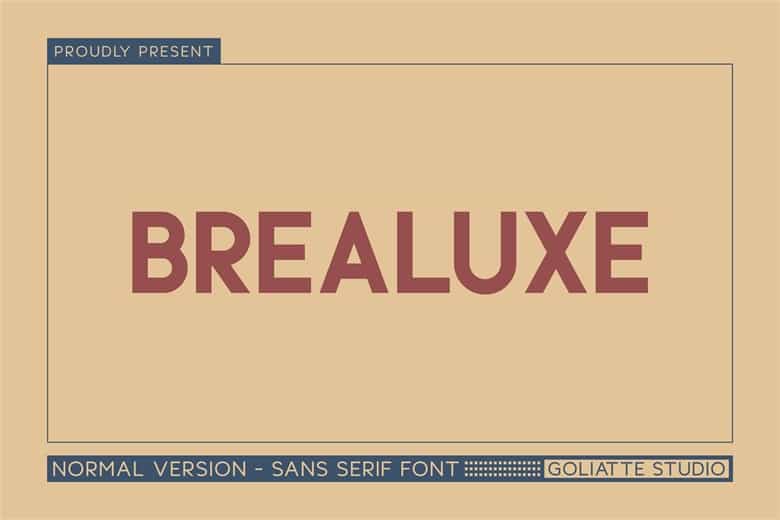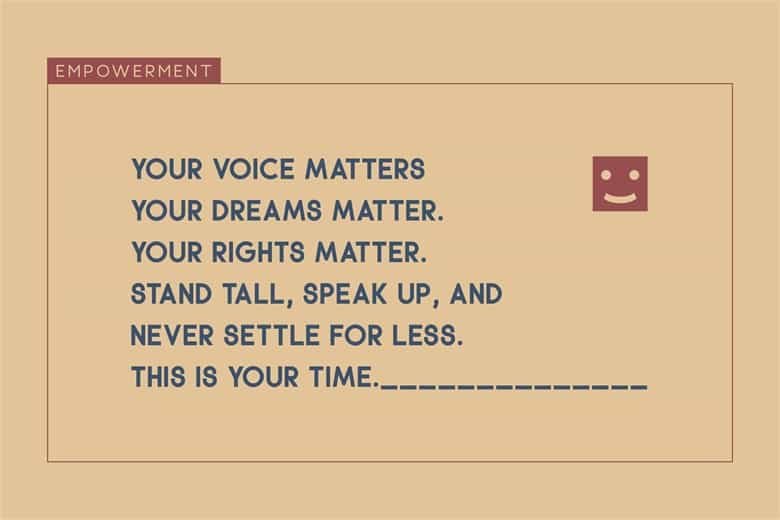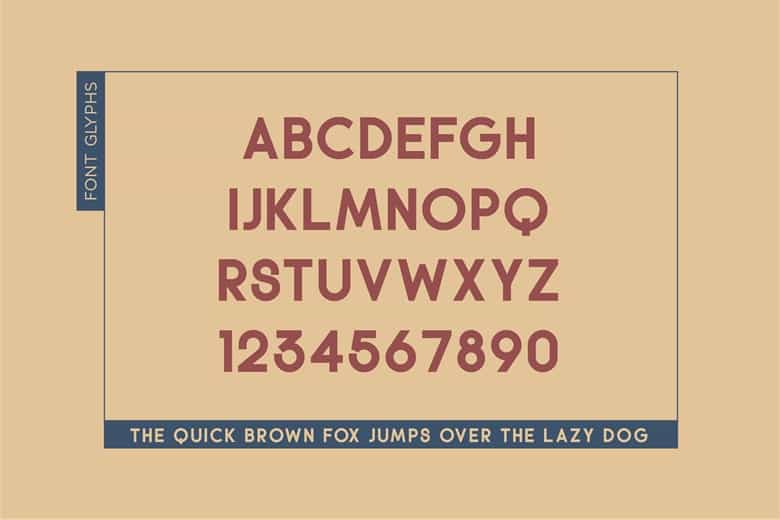
Brealuxe is a modern uppercase sans serif typeface that’s great for designers who want something simple and up to date. With its clean lines and simple look, this font gives off a strong and confident feel. It is great for tasks where you want to show some seriousness or make something stand out. Whether you’re making a logo or just making a document for print, Brealuxe looks really clean and bold with its clear, sharp lines.